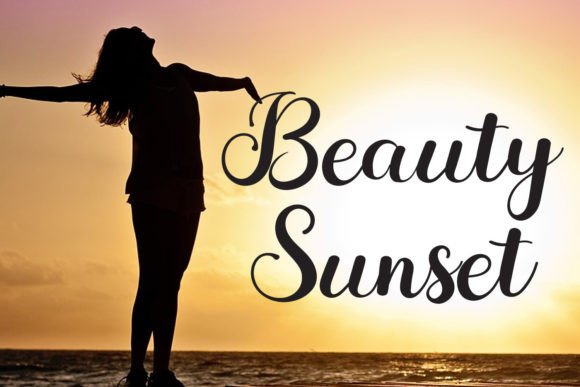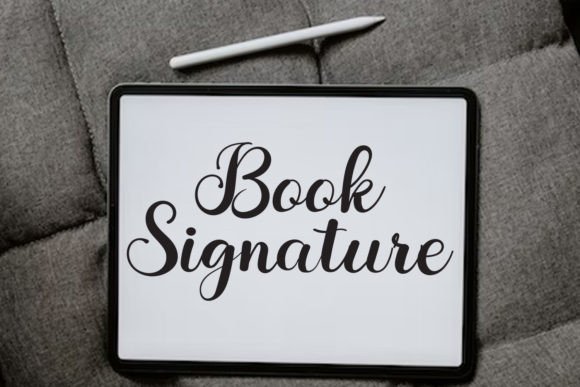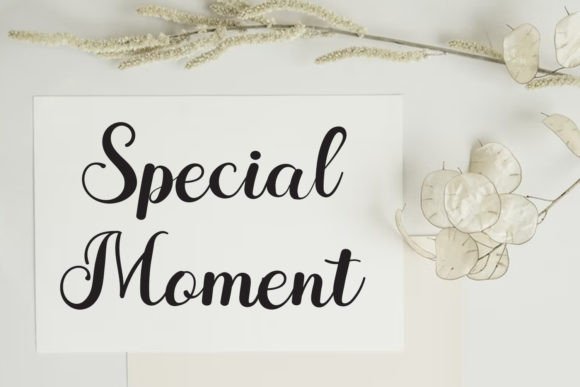
A Charming and Elegant Handwritten Font
Allive Font is a charming and elegant handwritten typeface designed to add a personalized and timeless touch to any project. With its smooth strokes and refined design, this font is perfect for a variety of creative applications, from wedding invitations to business cards. Whether you’re working on formal event stationery, logos, or social media graphics, the Allive Font elevates your designs with a sophisticated yet approachable charm that is both unique and memorable.
Perfect for Wedding Invitations and Special Occasions
For wedding invitations and special event stationery, the Allive Font is an ideal choice. Whether you’re designing save-the-dates, thank-you cards, or event programs, this font brings a romantic, elegant touch to your designs. Its flowing script and graceful curves ensure that your invitations are both charming and personalized, setting the tone for your special occasion. The Allive Font ensures your stationery looks timeless, refined, and memorable.
Great for Logos and Branding Projects
For logos and branding, the Allive Font offers a unique handwritten style that gives your brand identity a personalized, artistic touch. Whether you’re creating a luxury brand logo, personalized business cards, or marketing materials, this font ensures your business stands out with elegance and creativity. Its beautifully crafted strokes and well-defined letterforms make it the perfect choice for businesses looking to convey sophistication, professionalism, and approachability.
Ideal for Greeting Cards and Quotes
The Allive Font is perfect for creating greeting cards and quote designs. Whether you’re designing birthday cards, holiday greetings, or inspirational quotes, this font adds a personalized and charming element to your designs. Its handwritten feel gives your cards and messages a distinctive and elegant appeal, ensuring that they leave a lasting impression. Perfect for gifting, thank-you notes, or motivational posts, the Allive Font enhances the meaning of every message.
Ideal for Business Cards and Promotional Materials
For business cards and promotional materials, the Allive Font brings a professional yet creative touch to your business identity. Whether you’re designing corporate business cards, flyers, or advertising materials, this font helps convey your brand’s unique personality. The charming handwritten style ensures your materials stand out with a memorable and approachable vibe. Ideal for small businesses, creative agencies, or personal branding, this font helps your business materials feel distinctive and refined.
Versatile and Legible
Despite its elegant handwritten design, the Allive Font remains legible and easy to use. Its consistent letterforms and clean strokes ensure that your text is clear and readable, even for longer passages or smaller sizes. Whether you’re using it for headlines, captions, or body text, this font strikes the perfect balance of creativity and readability, making it suitable for a variety of design applications, from print to digital media.
Add Elegance and Charm to Your Designs with Allive Font
If you’re looking for a charming and elegant handwritten font to enhance your designs, the Allive Font is the perfect choice. Whether you’re designing wedding invitations, logos, greeting cards, or social media posts, this font brings a timeless, personalized touch to your work. Let the Allive Font help you create creative designs that leave a lasting impression.